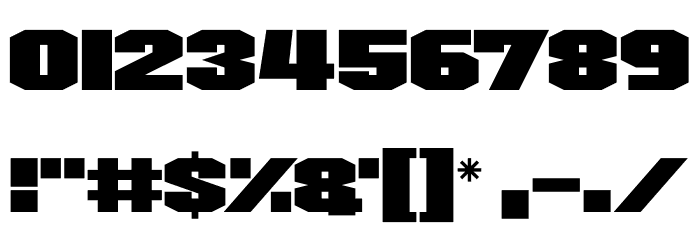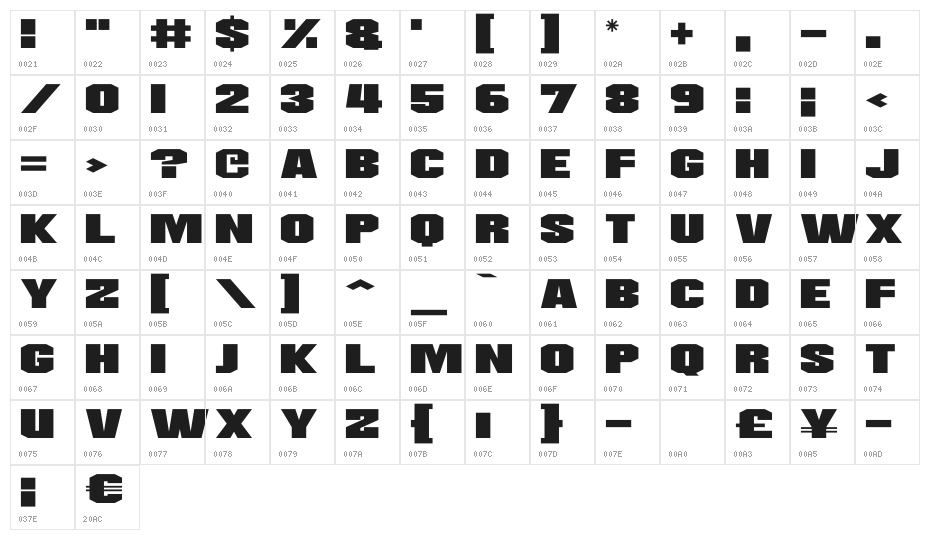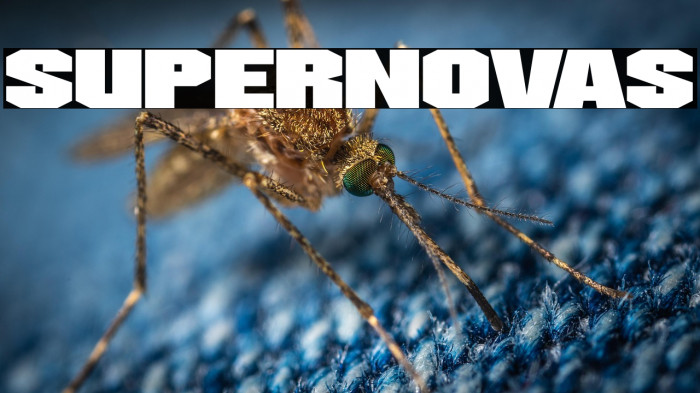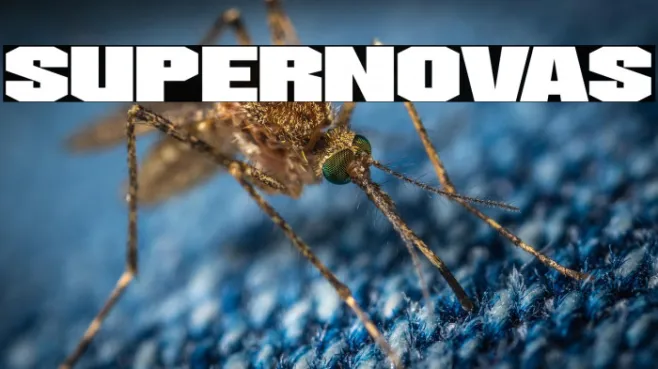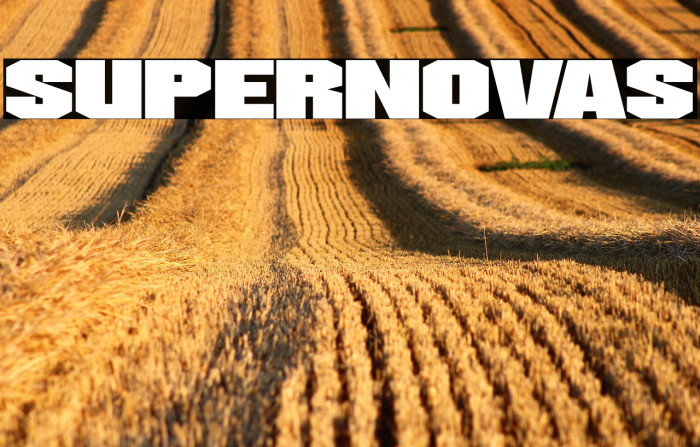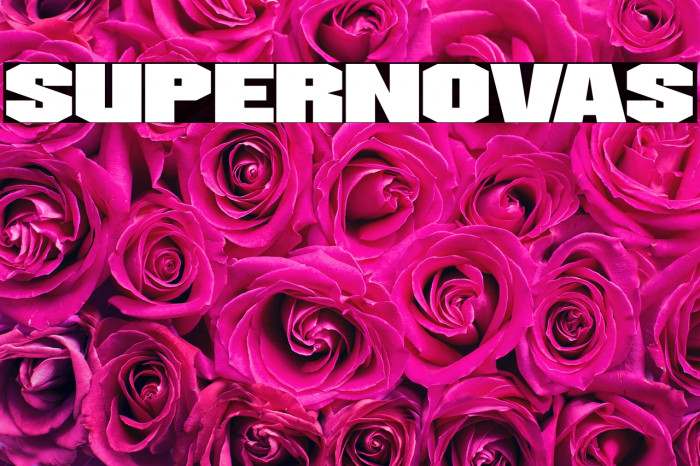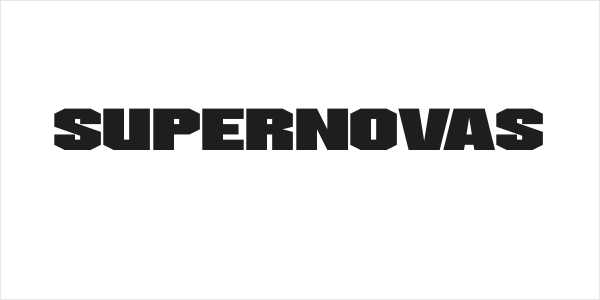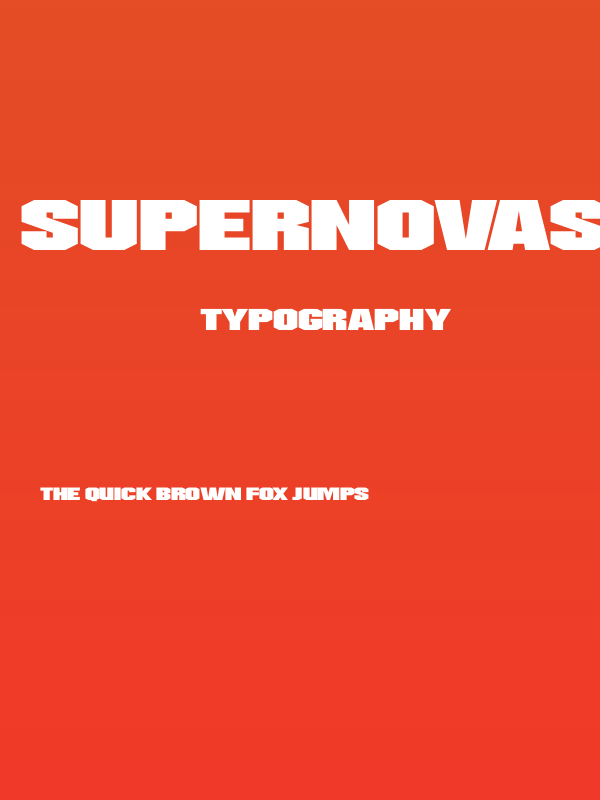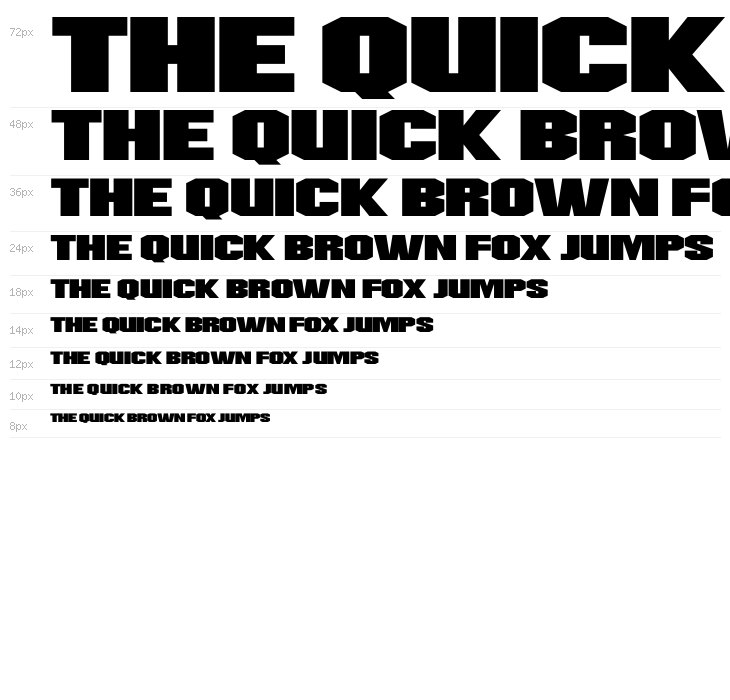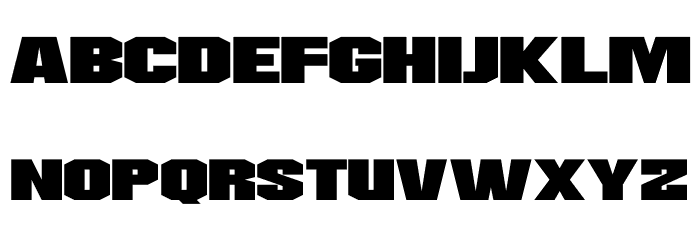
Supernovas Font
Supernovas Description
This font features a bold and impactful design with strong geometric shapes and a modern aesthetic. The characters are uniformly wide, creating a sense of stability and strength. The uppercase letters are particularly striking, with sharp angles and a blocky appearance that commands attention. The numbers and special characters maintain this bold style, ensuring consistency across all elements. This font is ideal for projects that require a powerful visual presence.
| Proposed Projects | Ideal for headlines, posters, branding, and any project needing a strong visual impact. |